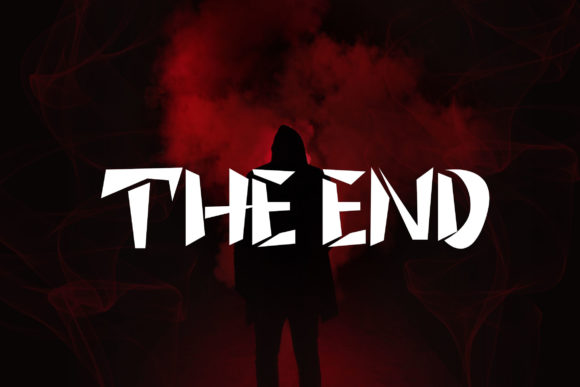
Introduction to Shupra Font
Have you ever been working on a creative project, and the perfect font just eludes you? You envision a bold, eye-catching design that grabs the viewer’s attention, but nothing seems to fit. That’s where the Shupra Font comes in – a cool, bold, and thick lettered display font that’s sure to elevate your designs to the next level.
Whether you’re a seasoned designer or a crafty enthusiast, the Shupra Font is a valuable addition to your design resource arsenal. Its high-quality design makes it perfect for a variety of applications, from crafting and digital designing to presentations and greeting card making. With its unique style, you’ll be able to create truly unique and memorable designs that stand out from the crowd.
Key Features of Shupra Font
- High-quality design: This font is designed to provide a unique and elegant look for any project, with a focus on high-quality typography.
- Large character set: The Shupra Font includes a large character set, including Latin and Cyrillic alphabets, making it suitable for various languages and projects.
- Unique and creative: The Shupra Font features a unique and creative design, making it an ideal choice for designers looking to add a touch of elegance to their projects.
Honest Review: Shupra Font
As a designer, I’m always on the lookout for unique and high-quality design resources to elevate my creative projects. Recently, I stumbled upon the Shupra Font, and I’m excited to share my thoughts on this free download.
What works well: ✨ The Shupra Font has a distinctive, modern aesthetic that’s perfect for contemporary designs. Its clean lines and geometric shapes make it an excellent choice for creative projects that require a touch of sophistication. Additionally, the font is highly customizable, allowing you to adjust the size, color, and style to suit your needs.
What doesn’t: ⚠️ One potential drawback is the lack of a transparent background option, which can make it challenging to use the font on complex designs with layered elements. However, this limitation is relatively minor and can be worked around with some creative problem-solving.
Overall, I’m impressed with the Shupra Font’s high quality and versatility. It’s an excellent design resource for anyone looking to add a unique touch to their creative projects. Whether you’re designing a logo, brochure, or website, the Shupra Font is definitely worth considering.
- Modern aesthetic
- Customizable
The Shupra Font is perfect for a variety of creative projects, including logos, graphics, and presentations. It’s also great for use in free download templates and design resources. With its high quality look and feel, the Shupra Font is a must-have design resource for any creative project.